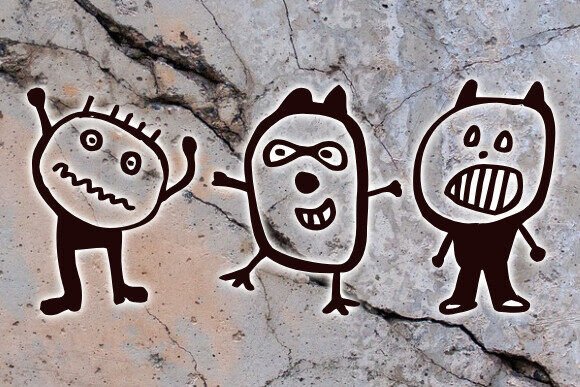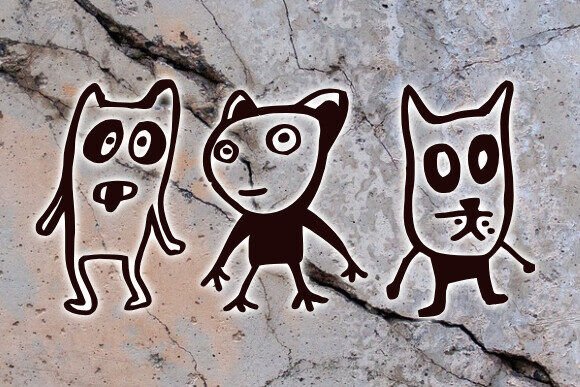
Introduction to Kinderskizzen Font
Have you ever found yourself staring at a blank canvas, waiting for inspiration to strike? For many designers, it’s that moment of creative clarity that sparks the next big project. And what better way to add a dash of whimsy to your design than with the delightful Kinderskizzen Font?
This charming dingbat font is a treasure trove of playful children’s drawings, waiting to bring your creative project to life. With its transparent background and high-quality design, it’s the perfect resource for designers looking to add a personal touch to their work. Whether you’re crafting posters, flyers, or t-shirts, Kinderskizzen Font is sure to be a valuable addition to your design arsenal.
Key Features of Kinderskizzen Font
- High-quality design resource ideal for creative projects, educational materials, and children’s publications.
- Features a transparent background, allowing for easy integration with various design elements and backgrounds.
- Designed with a playful and whimsical style, perfect for creating engaging and interactive content.
- Comes in a single weight, providing a clean and consistent look for your design project.
Honest Review: Kinderskizzen Font
As a designer, I’m always on the lookout for unique and high-quality design resources to enhance my creative projects. The Kinderskizzen Font is one such find that caught my attention. This charming font is perfect for adding a whimsical touch to children’s books, illustrations, or any other project that requires a playful feel.
- ✨ High quality design that’s perfect for creative projects.
- ✨ Unique and quirky style that adds a touch of personality to any design.
- ✨ Transparent background, allowing for easy placement over any image or color.
- ⚠️ Limited language support, which might be a concern for designers who need to work with multiple languages.
- ⚠️ Not ideal for formal or professional designs, as it may come across as too playful.
Overall, the Kinderskizzen Font is a delightful addition to any designer’s arsenal. While it may have some limitations, its unique style and high quality make it a great choice for the right projects. If you’re looking for a fun and creative font, the Kinderskizzen Font is definitely worth checking out.
How to Use Kinderskizzen Font
Getting the Most Out of Kinderskizzen Font
To get the most out of the Kinderskizzen Font, use it in creative projects that require a playful and whimsical touch. Experiment with different font sizes, colors, and combinations to create unique designs.
The Kinderskizzen Font is commonly used in children’s educational materials, party invitations, and other creative projects that require a fun and engaging design. Its high quality and versatility make it a valuable design resource.
How can I customize the Kinderskizzen Font for my design project?
The Kinderskizzen Font is highly customizable, allowing designers to adjust the font’s appearance to suit their creative vision. You can modify the font’s size, color, and style to match your project’s requirements. Additionally, the font’s transparent background makes it easy to combine with other design elements and achieve a unique look.